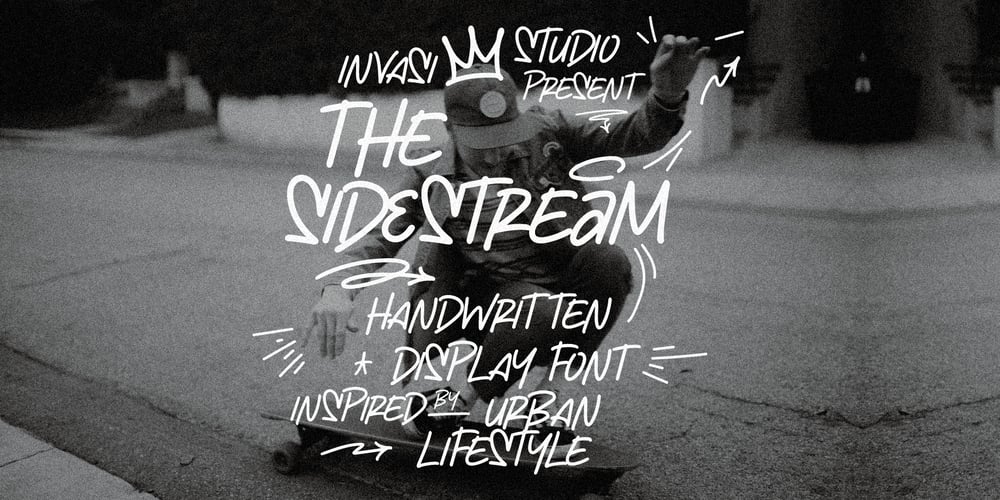
The Sidestream Font Family was designed by Gha Arizal and published by Invasi Studio. The Sidestream contains 1 styles and family package options. The Sidestream is Handwritten Display font inspired by the urban lifestyle which is inspired by the graffiti style.